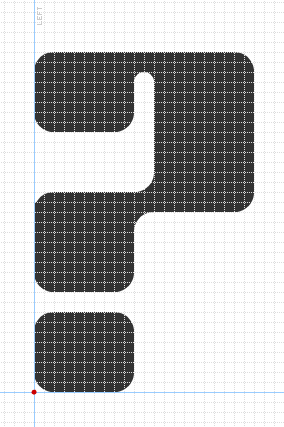
Wonderful work. You are a one man type foundry. Does anyone know who is credited with designing the most typefaces? I remember reading that Goudy was prolific. His Wikipedia entry lists his output at 122 typefaces. That's 52 less than Funk King.
Cute at first sight, but truly beautiful when you take some time to appreciate. Your solution for the U is a really good idea. Just one tiny detail I would change : the loop of the ? may be lowered a little more. I know you wanted to bring it into line with the lc x-height, but the glyph looks a little bit compressed as it is.
i just mentioned this before, but i think NOONE did more fonts than you!
very cool
definitely one of your best!